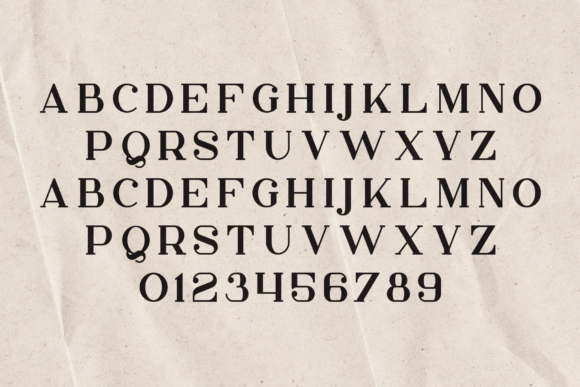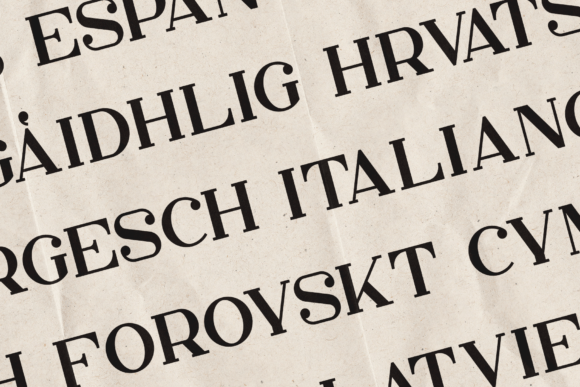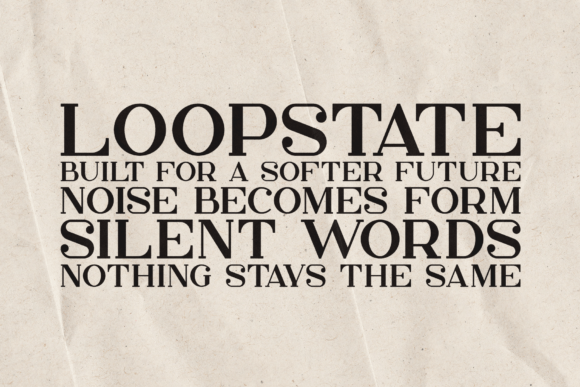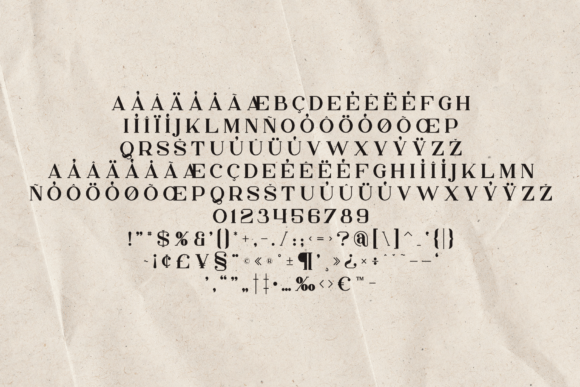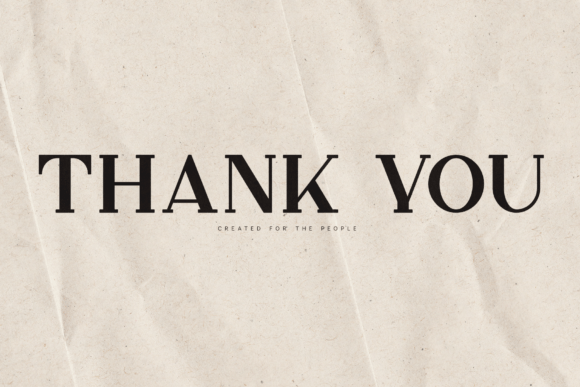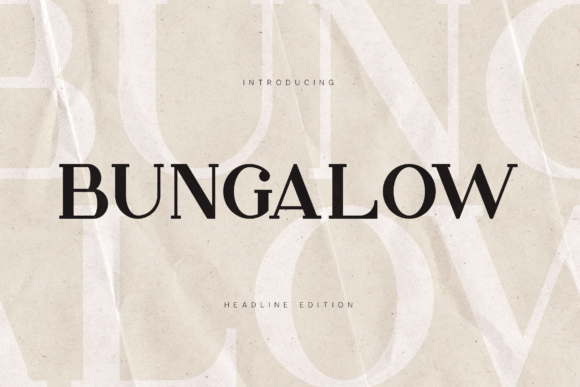
Bungalow Font: Elevate Your Design with Elegance and Sophistication
In the world of typography, a well-crafted font can make all the difference in elevating your design from ordinary to extraordinary. Introducing Bungalow, a modern editorial serif typeface designed to make a statement. With its sharp serifs, high contrast strokes, and meticulously crafted letterforms, Bungalow is the perfect choice for designers seeking to create strong headlines, elegant branding, and sophisticated typography.
The Essence of Bungalow
Bungalow is more than just a font – it’s a design statement. Its sharp serifs and high contrast strokes evoke a sense of luxury and refinement, making it ideal for editorial layouts, luxury branding, fashion magazines, posters, and high-end logo design. Whether you’re a seasoned designer or a crafty enthusiast, Bungalow provides a timeless serif aesthetic with a contemporary edge that’s sure to impress.
So, what sets Bungalow apart from other fonts? Here are some of its key design characteristics:
- Sharp Serifs: Bungalow’s serifs are carefully crafted to add a touch of sophistication to your designs. Their sharp edges and precise lines create a sense of elegance and refinement.
- High Contrast Strokes: The font’s high contrast strokes add a level of visual interest and depth to your designs. This contrast creates a sense of drama and emphasis, making your text stand out.
- Carefully Crafted Letterforms: Each letterform in Bungalow is meticulously designed to ensure a harmonious and balanced look. The font’s letterforms are optimized for readability, making it perfect for body text and headlines.
Use Cases
Bungalow is a versatile font that can be used in a variety of design applications. Here are some of the most popular use cases:
- Editorial Layouts: Bungalow’s elegant design makes it perfect for editorial layouts, such as magazines, newspapers, and books.
- Luxury Branding: The font’s sophisticated aesthetic makes it ideal for luxury branding, including high-end logos, packaging, and advertising.
- Fashion Magazines: Bungalow’s fashion-forward design makes it a great choice for fashion magazines, editorials, and advertising campaigns.
- Posters: The font’s bold and eye-catching design makes it perfect for posters, flyers, and other print materials.
- High-End Logo Design: Bungalow’s unique design makes it an excellent choice for high-end logo design, including luxury brands, startups, and entrepreneurs.
Why Choose Bungalow?
With so many fonts available, why choose Bungalow? Here are just a few reasons why designers and crafters love this modern editorial serif typeface:
- Timeless Aesthetic: Bungalow’s classic design ensures that your work will stand the test of time. Its timeless aesthetic will remain relevant for years to come.
- Contemporary Edge: The font’s modern twist sets it apart from more traditional serif fonts. Bungalow’s contemporary edge adds a level of sophistication and elegance to your designs.
- Versatility: Bungalow is a versatile font that can be used in a variety of design applications. Its flexibility makes it an excellent choice for designers and crafters.
In conclusion, Bungalow is a modern editorial serif typeface that’s perfect for designers and crafters seeking to elevate their designs with elegance and sophistication. Its sharp serifs, high contrast strokes, and carefully crafted letterforms make it ideal for a variety of design applications, from editorial layouts to luxury branding. Whether you’re a seasoned designer or just starting out, Bungalow provides a timeless serif aesthetic with a contemporary edge that’s sure to impress.